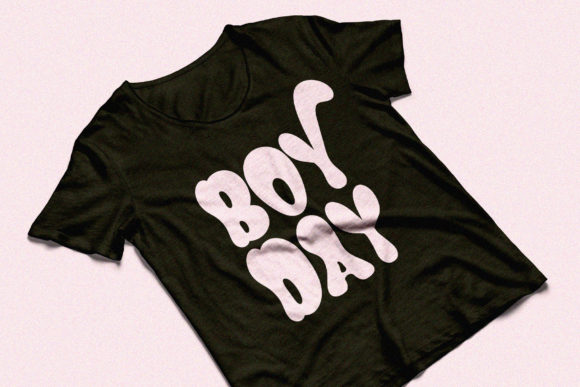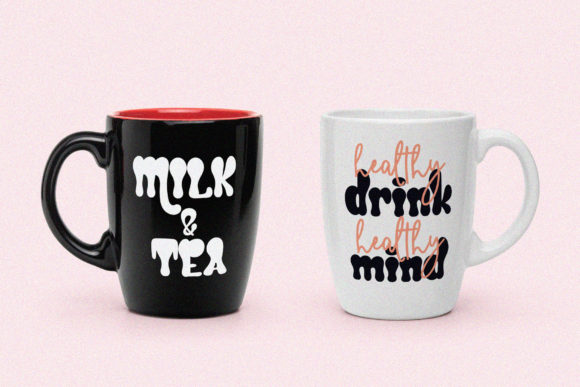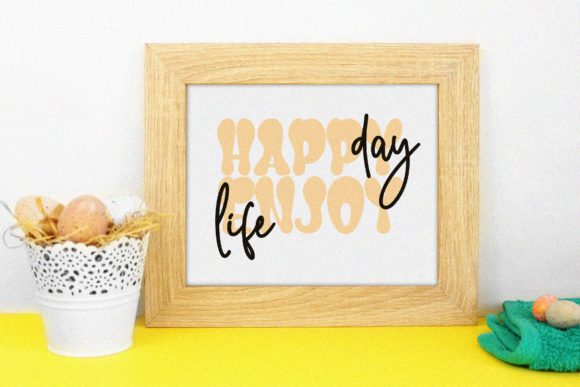
Introduction to Retro Mine Font
Retro Mine is a fatty and bubbly font with a vintage touch.
Although it had vintage vibes, this font can be used for modern design or any other playful craft design This font is the perfect modern retro font for any project, such as logo, crafting, poster, branding, sticker, sublimation, and many more.
Key Features of Retro Mine Font